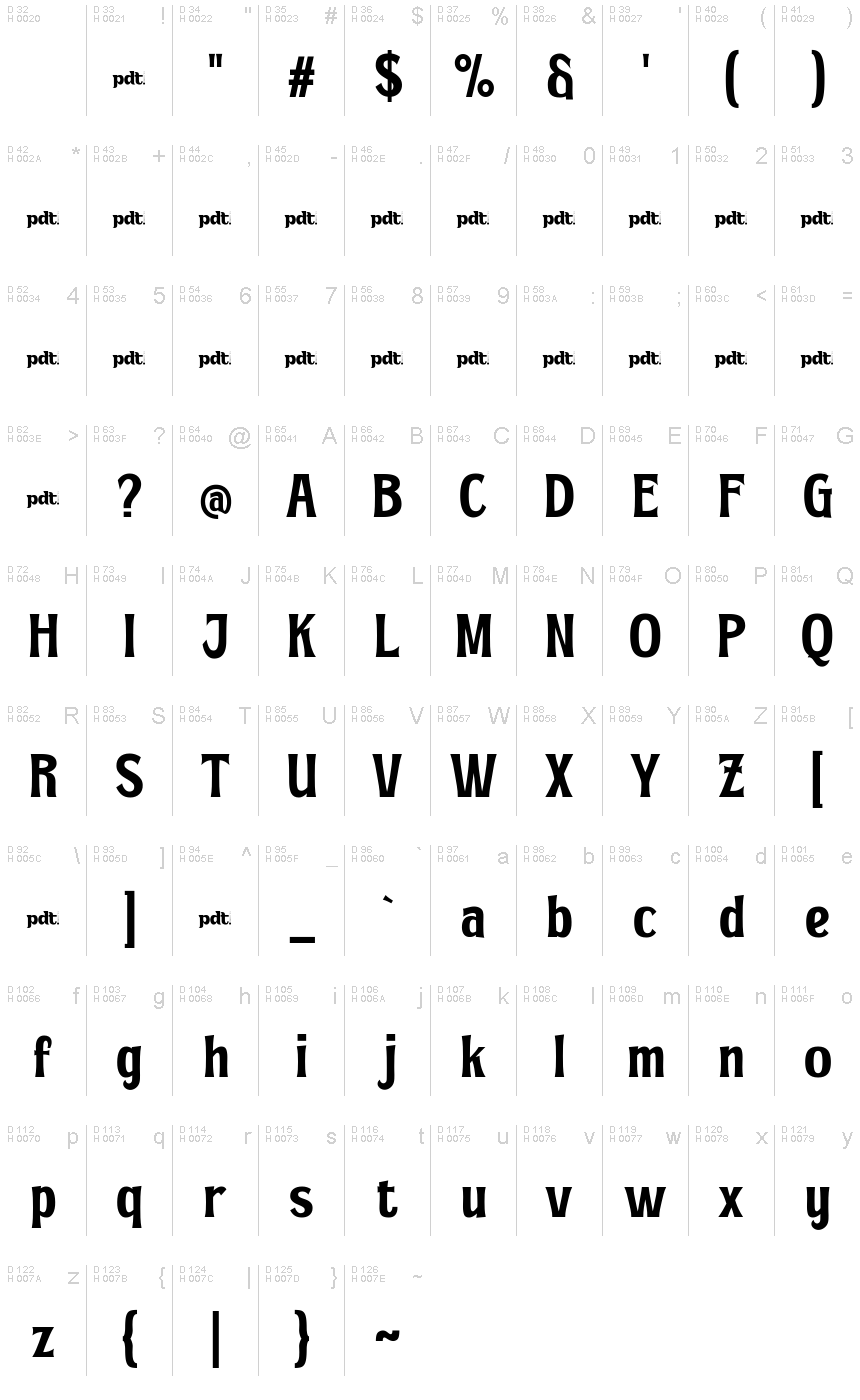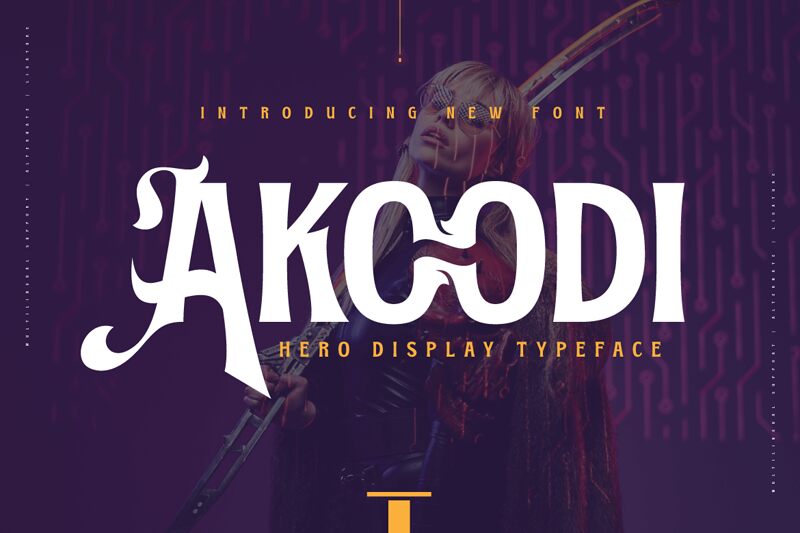
AKOODItrial Regular
Akoodi font is a condensed typeface created by productype. This bold narrow font catches the attention, therefore it’s perfect for impactful headlines or eye-catching posters.
With its unique style Akoodi is great as an element of branding projects where strong visual identity required. This free font can make any logo or advertising materials more visually appealing without sacrificing readability.